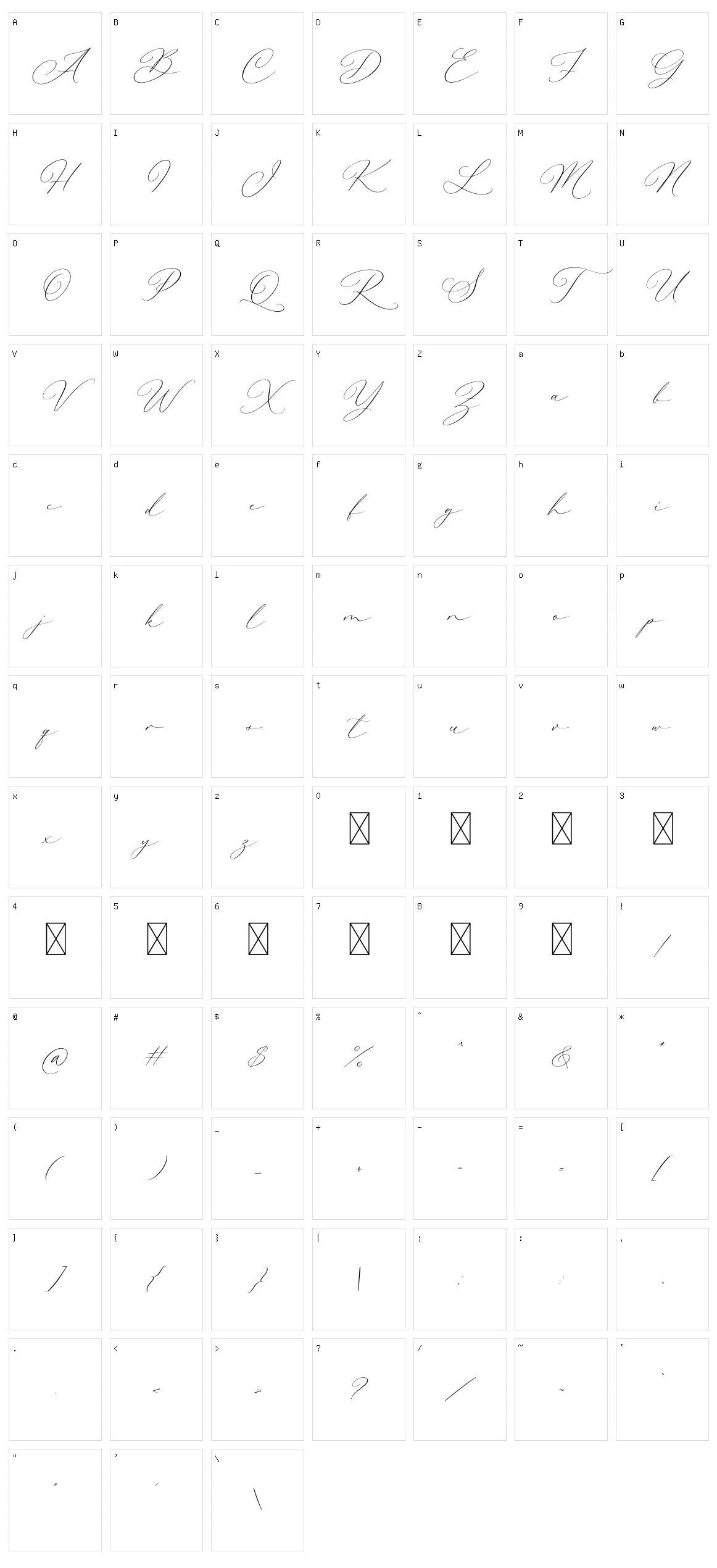
The free font La Belle is carefully designed by Nirmana Visual, showcasing a thoughtful balance of creativity and usability and falls under the Script font style. When you download the ZIP file, it contains only 943.51 KB of font files, making it lightweight and quick to download. Please review the license details below to understand permitted usage and distribution rights. If license information is not available, we recommend using this font for personal projects only or contacting the author directly for commercial usage permissions.